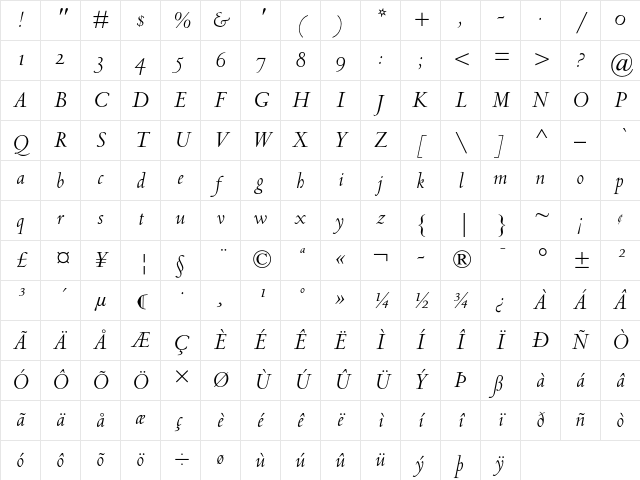
Centaur MT Italic OsF
Style: Italic OsF
Design Context for Centaur MT
Centaur MT is a composed and adaptable typeface that performs quietly and consistently across a wide range of design contexts. The slanted form adds forward momentum and visual energy.
Pro Tip: Use Centaur MT for emphasis, pull quotes, and subheadings where its slanted energy can add rhythm to the layout.